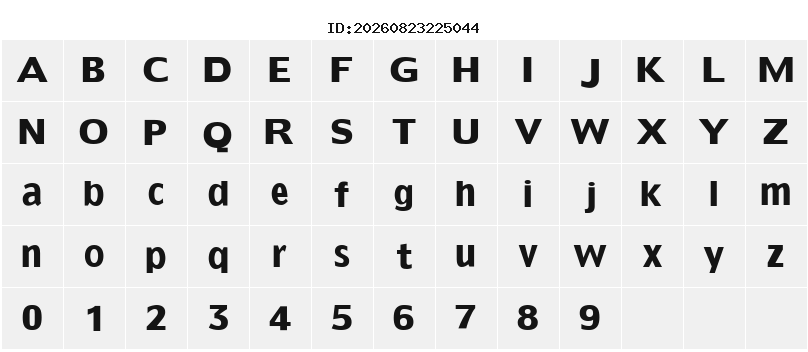
SansFat Preview
• Font Name: SansFat
• Font ID: SansFat
• Full Font Name: SansFat
• Version: 1.0 2004-06-03
• PostScript Name: SansFat
About SansFat.ttf
SansFat.ttf is a modern, elegant sans-serif font designed for ultimate readability and visual harmony. Perfect for branding, headlines, web design, and print materials.